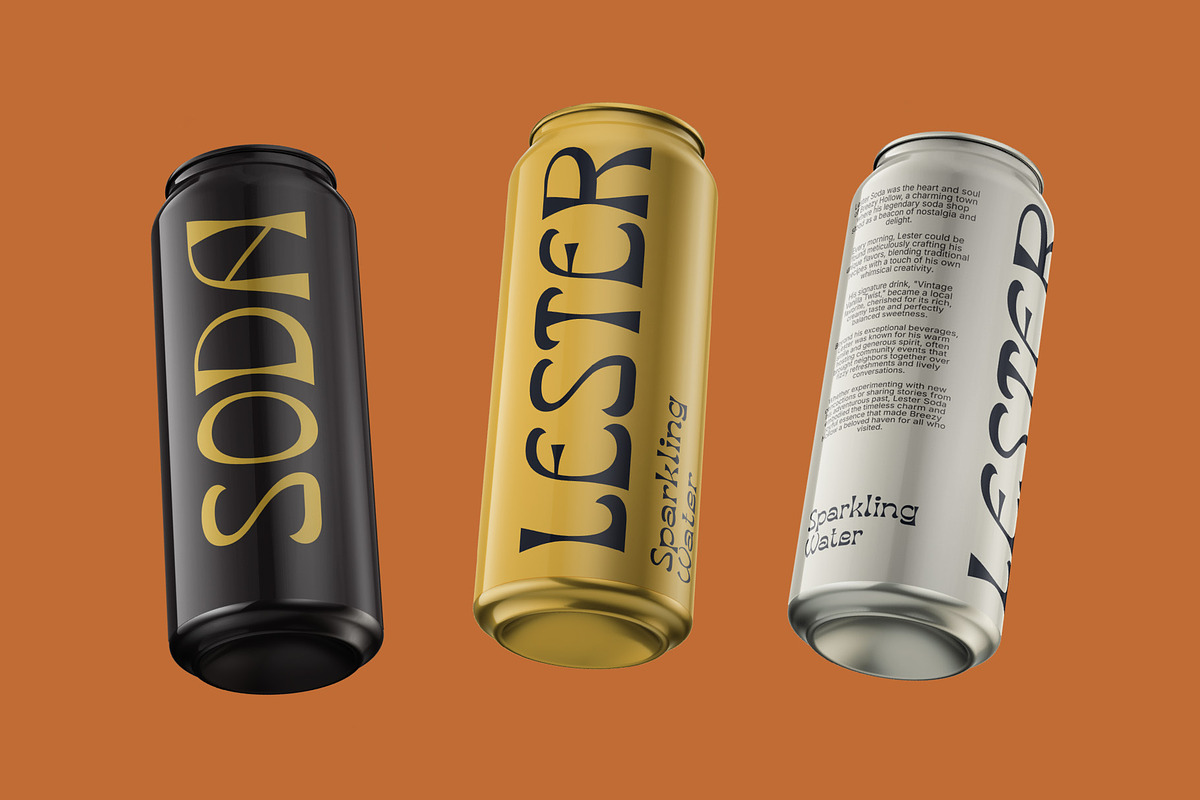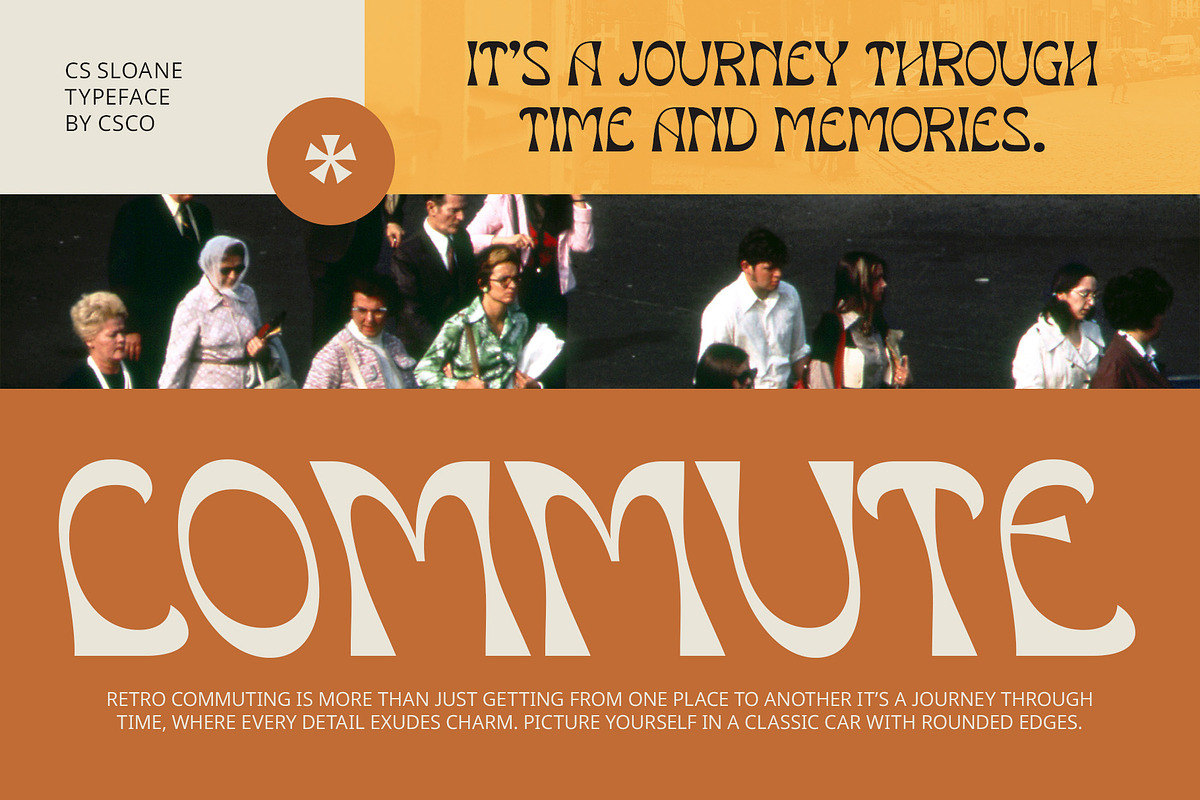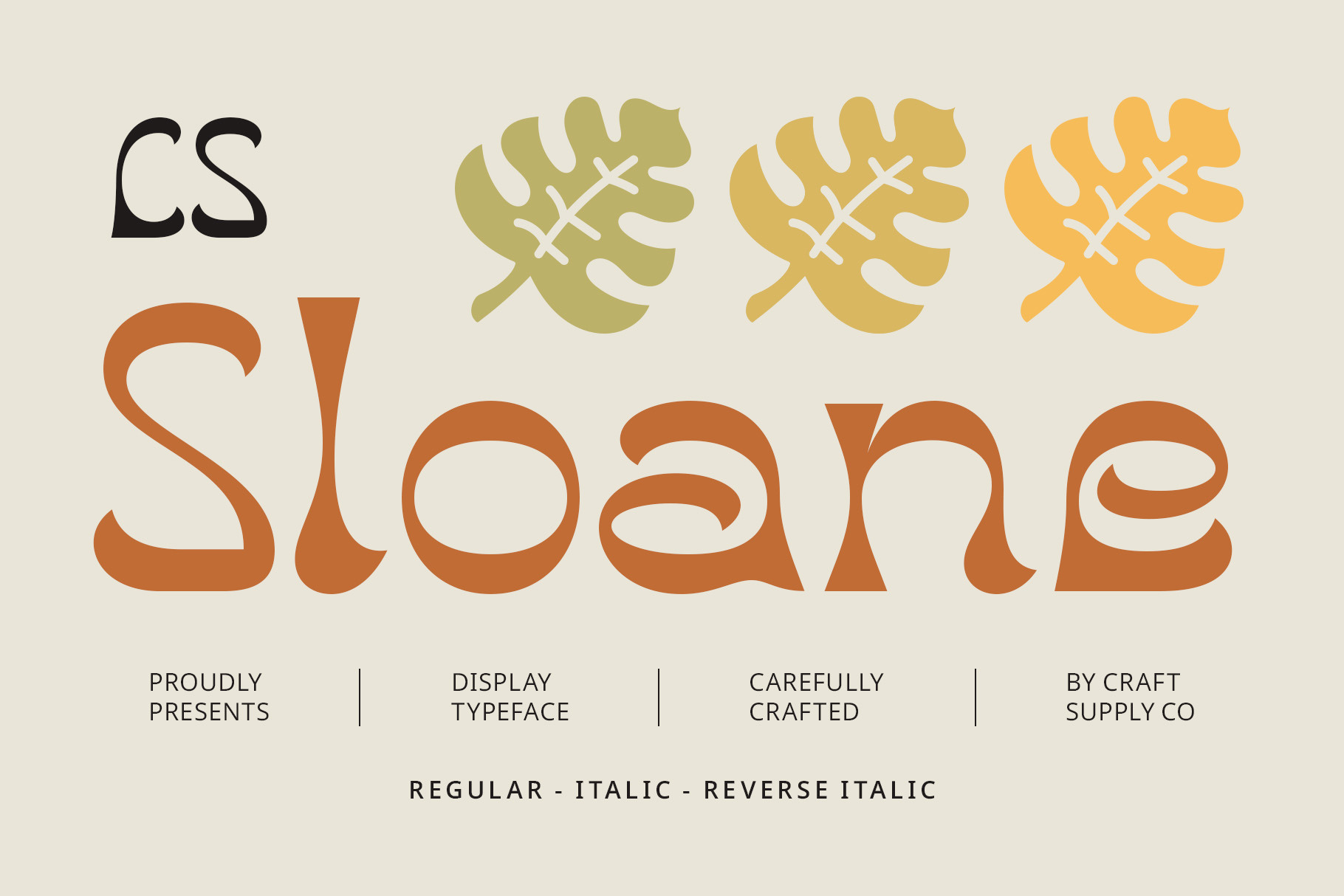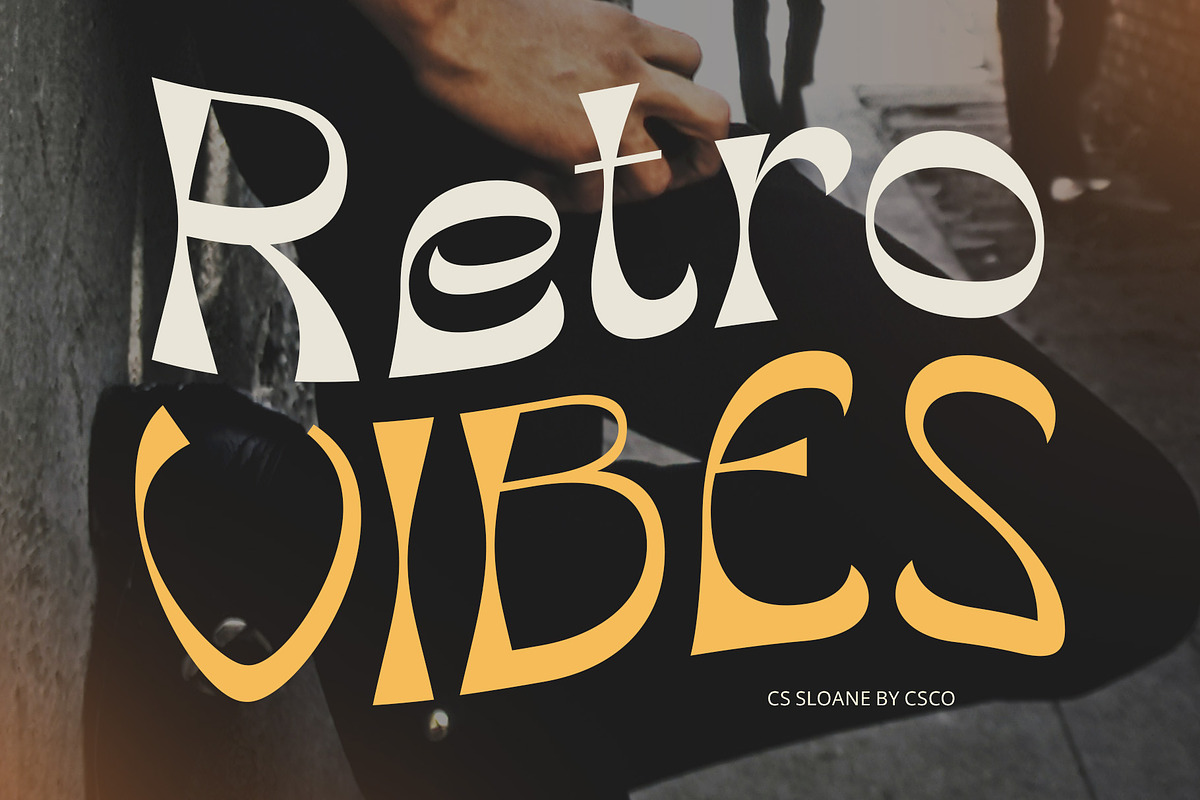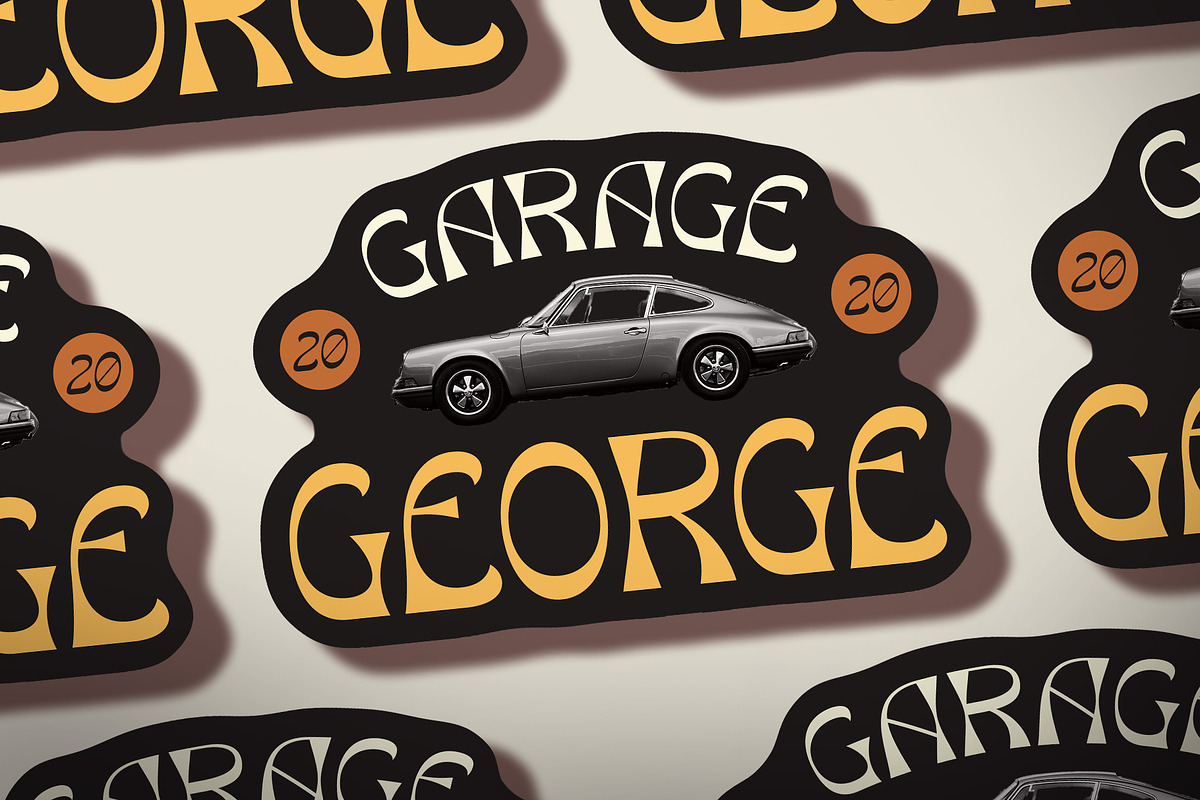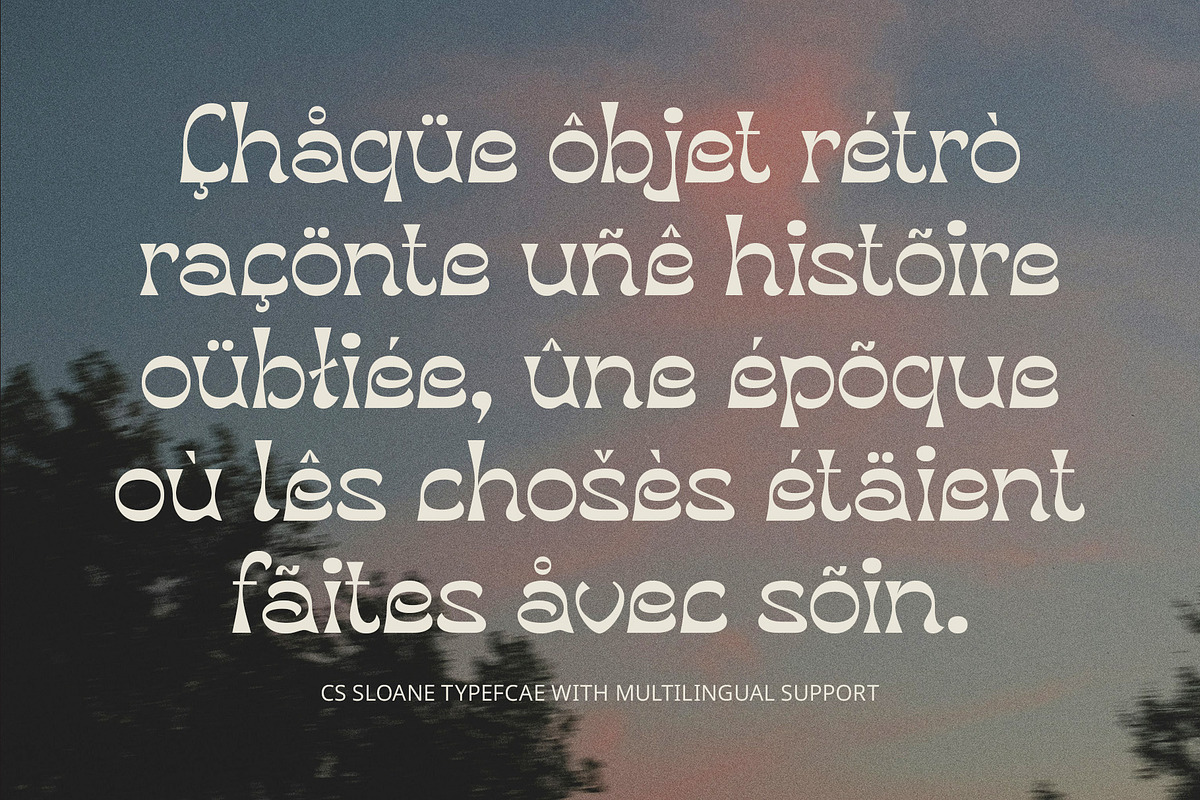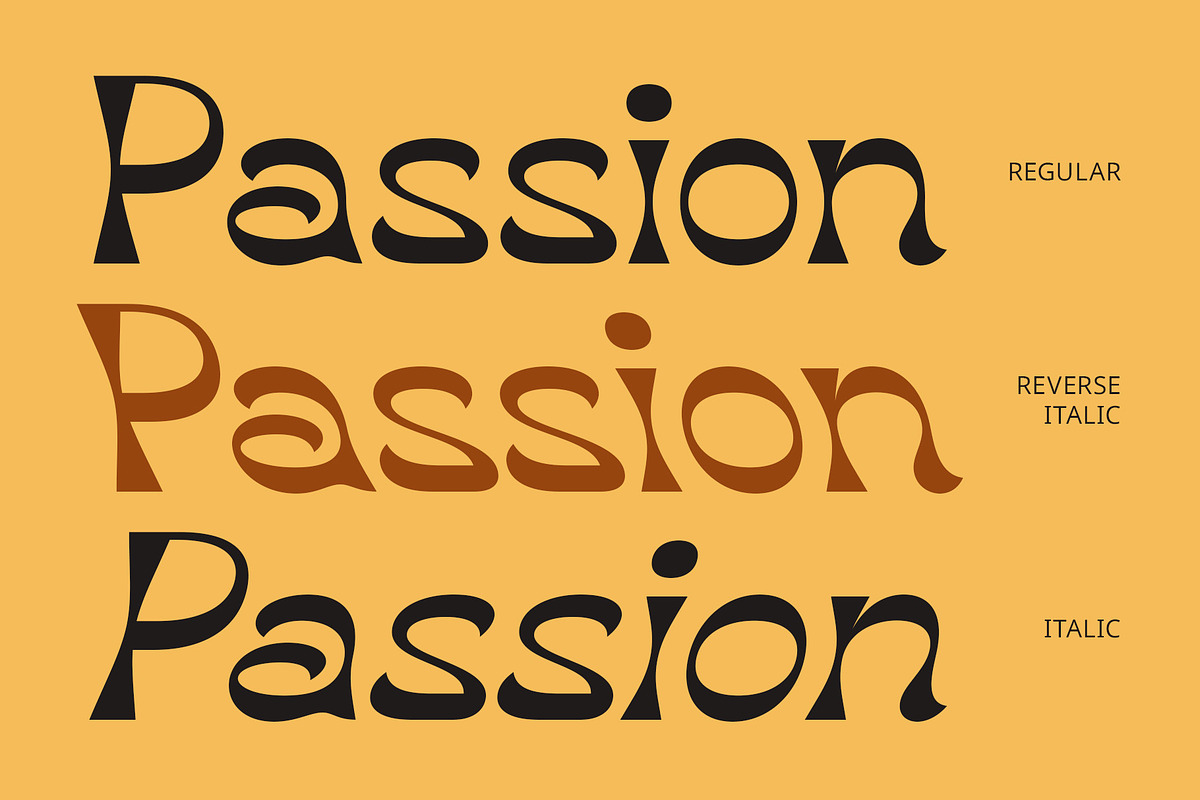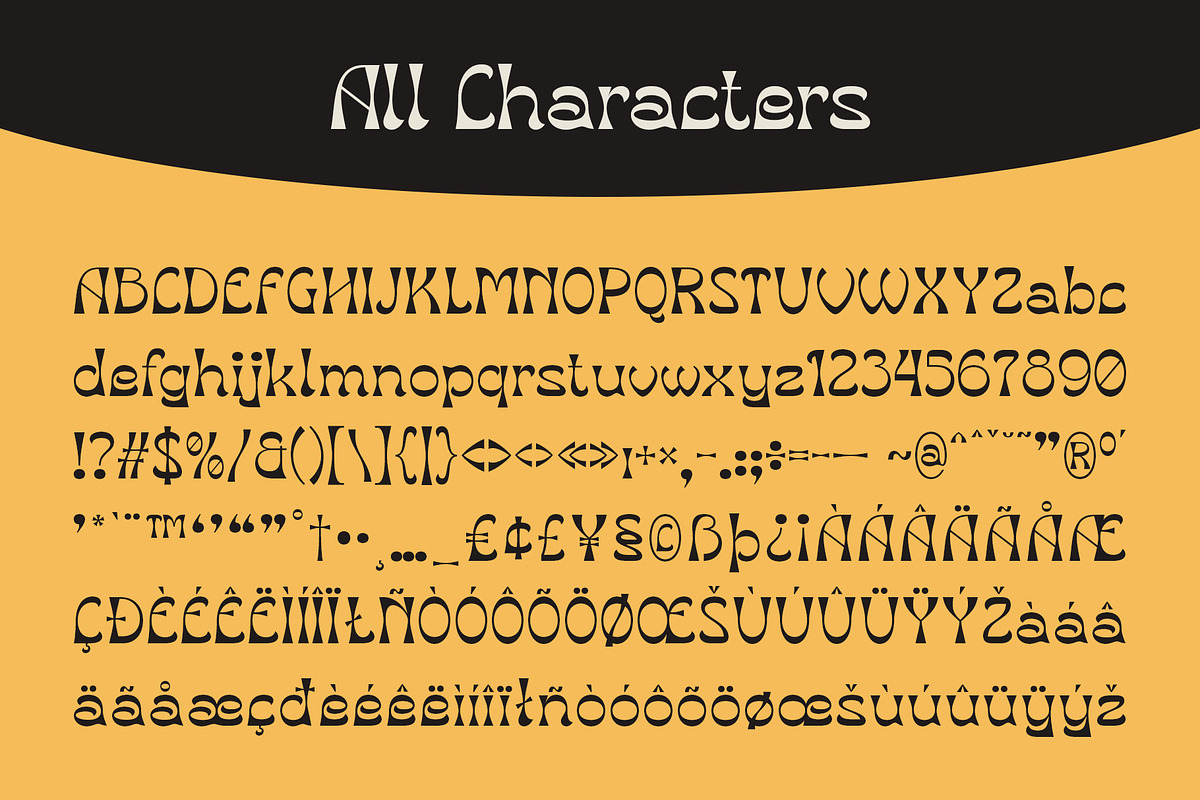
CS Sloane – Reverse Contrast Font
CS Sloane – Reverse Contrast 90s-Inspired Font
A Bold Fusion of Retro and Modern Design CS Sloane is a reverse contrast display font that blends the sharp contrasts of modern design with nostalgic elements from the 90s. Characterized by thick, bold strokes at the bottom of the letters paired with thinner, more delicate upper parts, this font stands out with its distinctive, eye-catching appearance. The reverse contrast style gives the typeface a sense of boldness and visual interest.
Bold, Funky, and Full of Energy The reverse contrast structure of CS Sloane injects a dose of energy and experimentation into any design, making it ideal for projects that aim to capture the fun, creativity, and boldness of 90s pop culture. Its unique letterforms combine vintage charm with contemporary appeal, offering a fresh take on retro design that is both striking and visually engaging.
Perfect for Retro-Inspired Designs This font is perfect for projects that want to blend retro nostalgia with modern design sensibilities. Ideal for 90s-inspired album covers, music posters, advertisements, or branding that seeks to capture the spirit of the era, CS Sloane delivers an edgy, funky feel. Its bold contrast and dynamic forms are perfect for designs that need to evoke the playful and experimental nature of 90s graphic and pop culture, all while maintaining a contemporary edge.